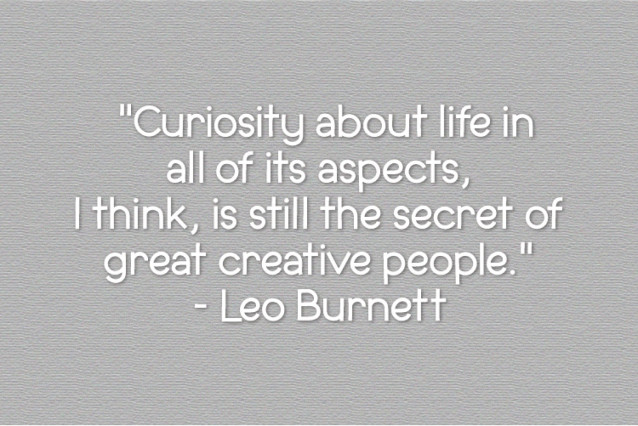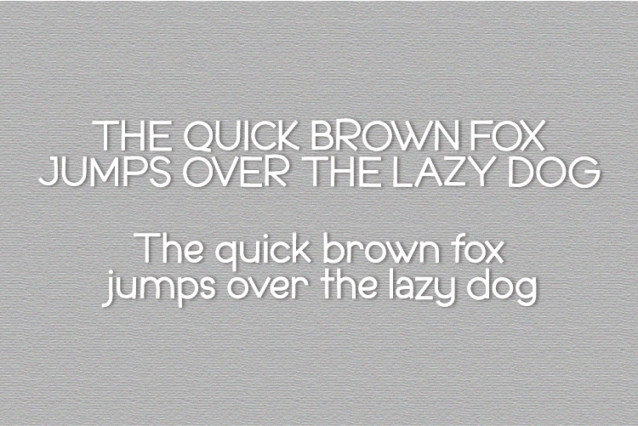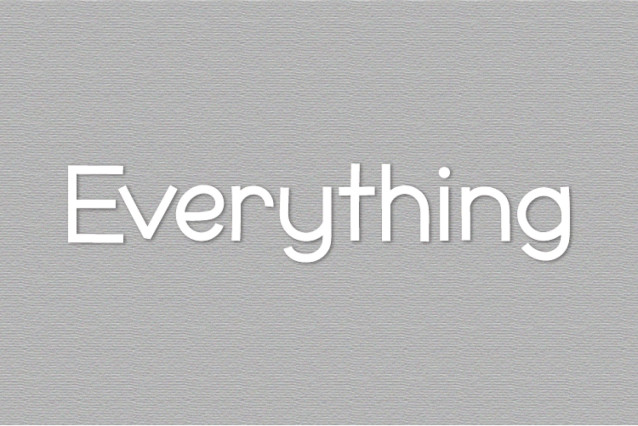
Everything Font
Everything is a casual and natural handwritten font. This classy and elegant look will appeal to a wide range of crafty ideas, from letterheads and titles to stationery.